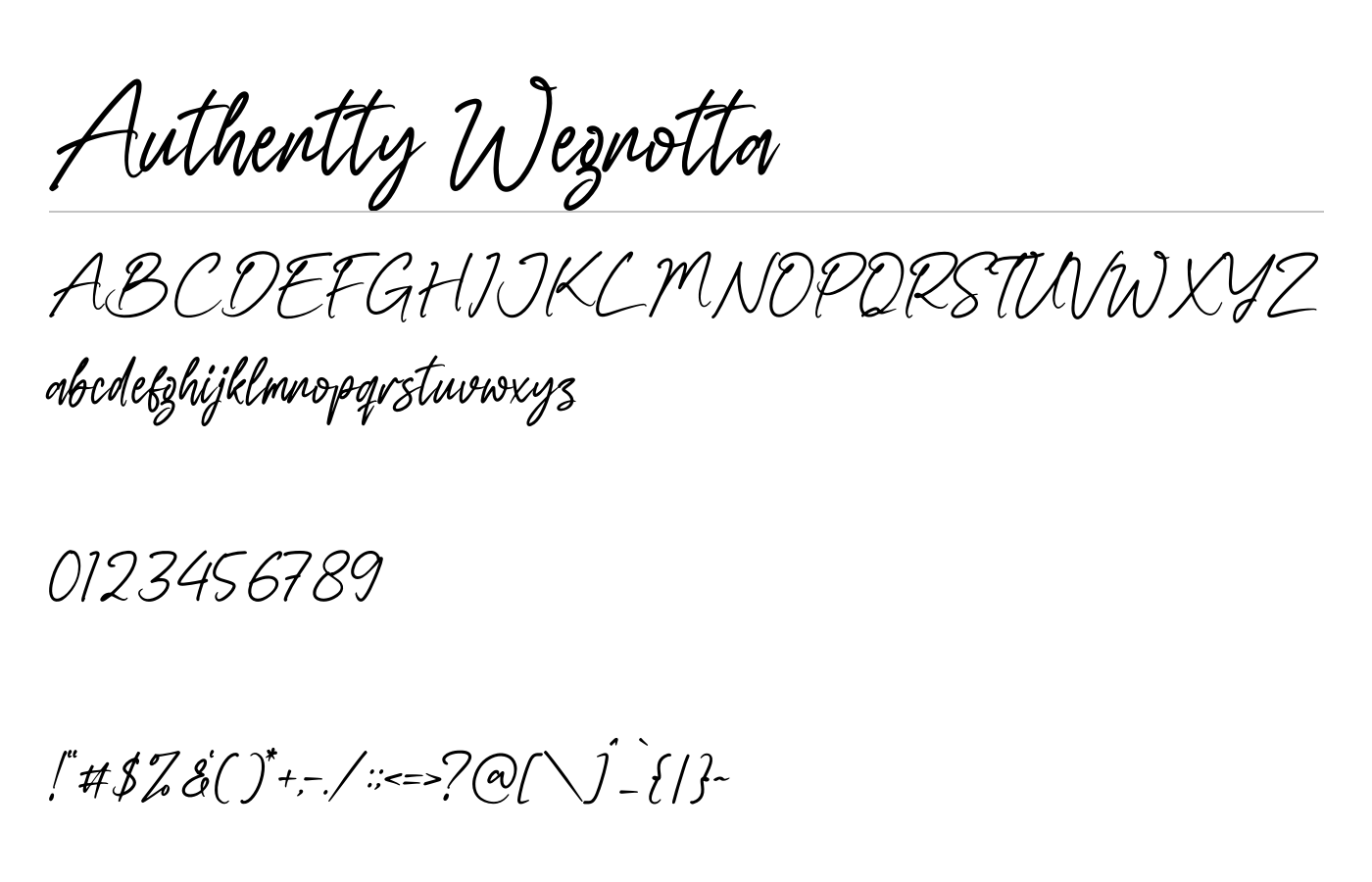
Authentty Wegnotta is a delicate, handwritten script font that exudes a casual yet refined elegance. Its light weight, smooth flowing strokes, and slightly varied letterforms create a natural, personal touch that works beautifully for branding, invitations, and editorial headlines where a warm, approachable style is desired. This font’s airy spacing and stylish letter shapes make it ideal for creative projects seeking a friendly, authentic appearance.
Authentty Wegnotta Font
About Authentty Wegnotta Font
| Font family | Authentty Wegnotta Font |
| Designer | Nanang Jamaludin |